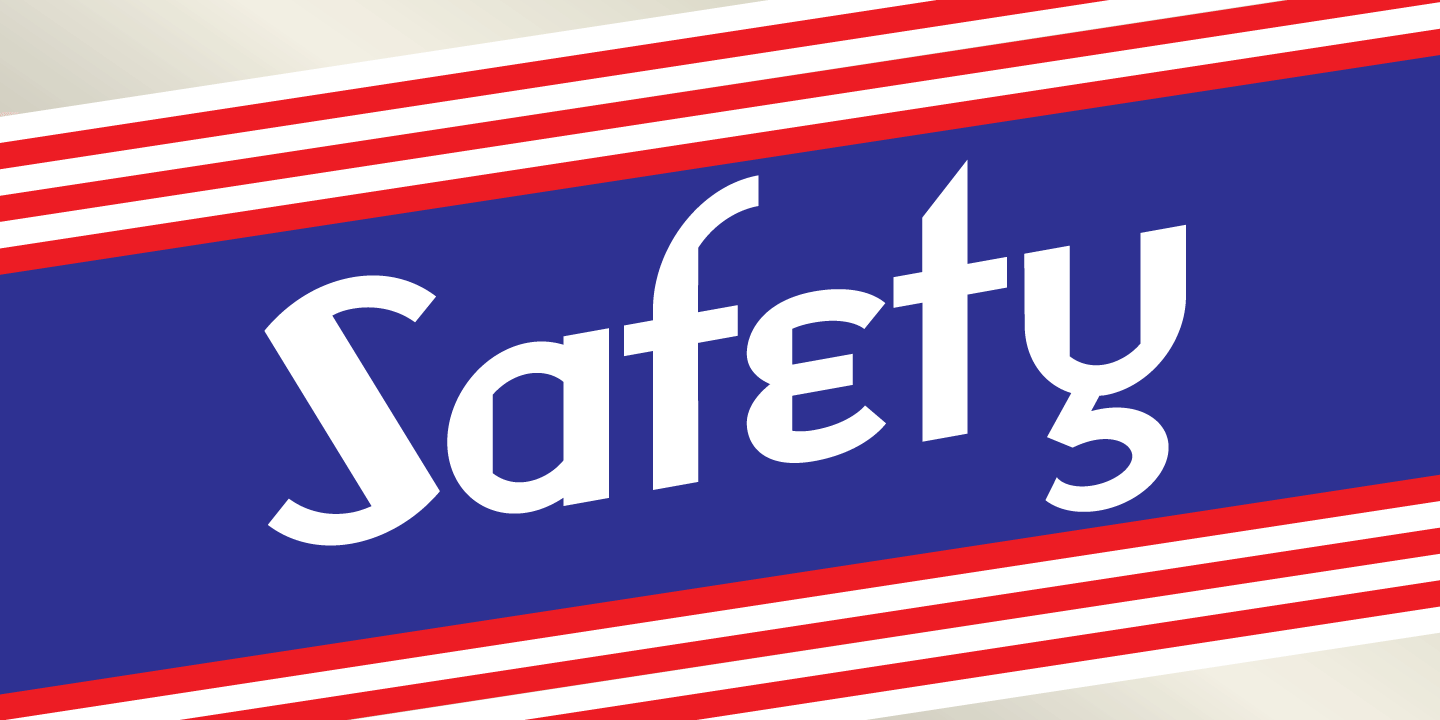
Safety
Safety is rendered with vertical stress and purely geometric shapes. The letterforms exhibit a stylized, precision typical of works from the Machine Age which had its greatest period of influence between the two world wars and celebrated the supposed triumphs of the late Industrial Age including mass production, skyscrapers, radio & phonographs, hydroelectric power and streamlined styling in product and industrial design.
It is based loosely on an Art Deco display style letter known most popularly as Broadway or Manhattan but, having existed in a multitude of incarnations from showcard lettering to neon signs for a century.